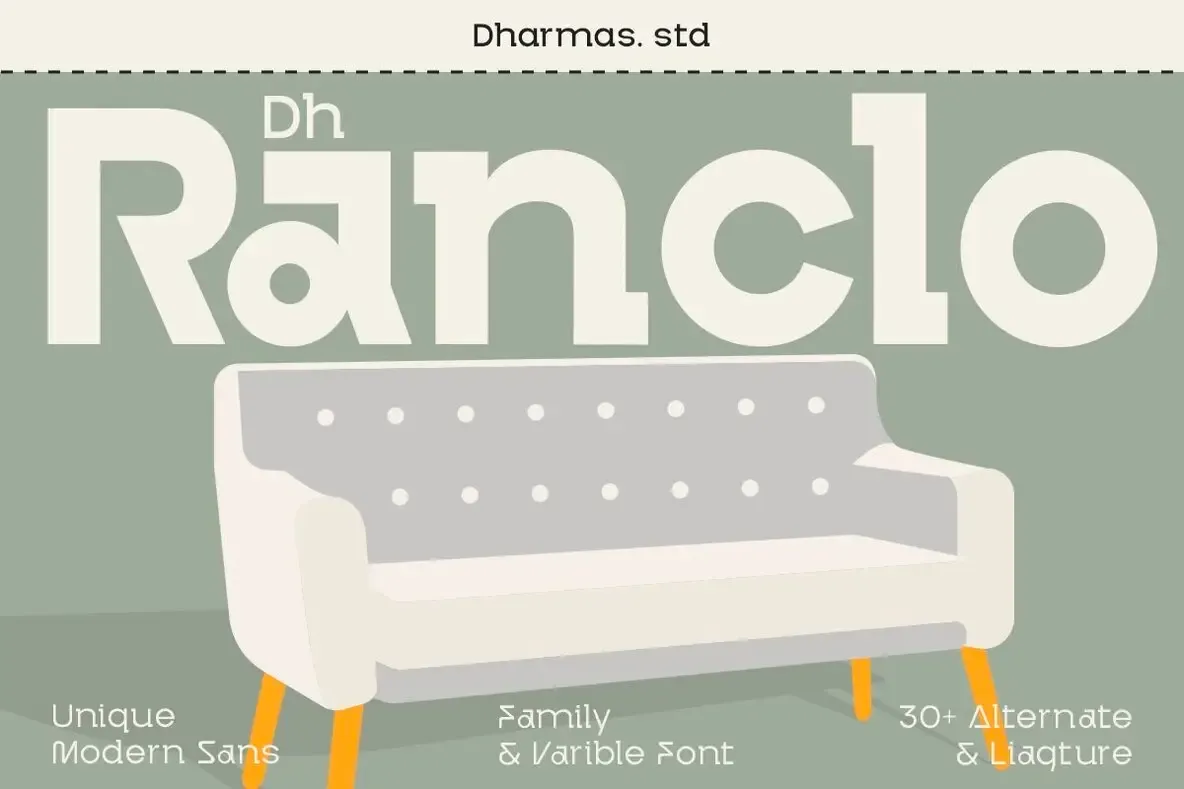
Dh Ranclo — Polished Geometry for Brands
Dh Ranclo is a modern display variable typeface made for high-end branding and professional design projects. Its clean, geometric letterforms and refined aesthetic bring contemporary minimalism together with timeless elegance. The result suits businesses that need a polished, authoritative presence across print, digital, and identity systems.
Featuring 7 variable weights—Thin, Extra Light, Light, Regular, Medium, Semi Bold, and Bold—along with 32 unique alternates and ligatures, Dh Ranclo gives designers flexible control across many design applications. Use it for corporate identity, sleek business presentations, standout logos, corporate branding, luxury packaging, editorial layouts, professional presentations, UI/UX design, modern website headlines, and marketing assets that call for a bold yet elegant visual identity.
Font Features
7 Weights: Thin, Extra Light, Light, Regular, Medium, Semi Bold, Bold
32+ Alternates & Ligatures for creative flexibility